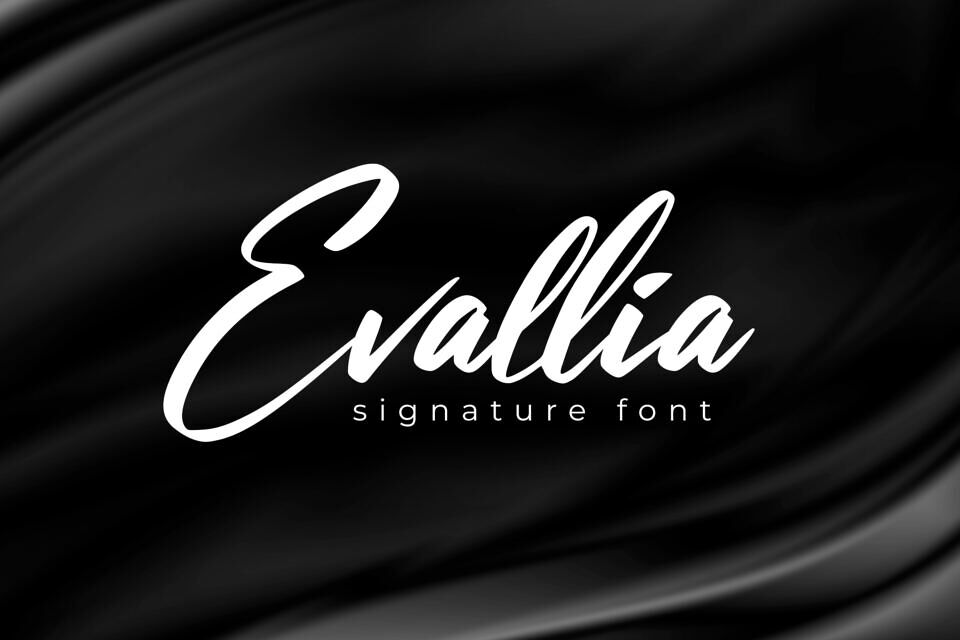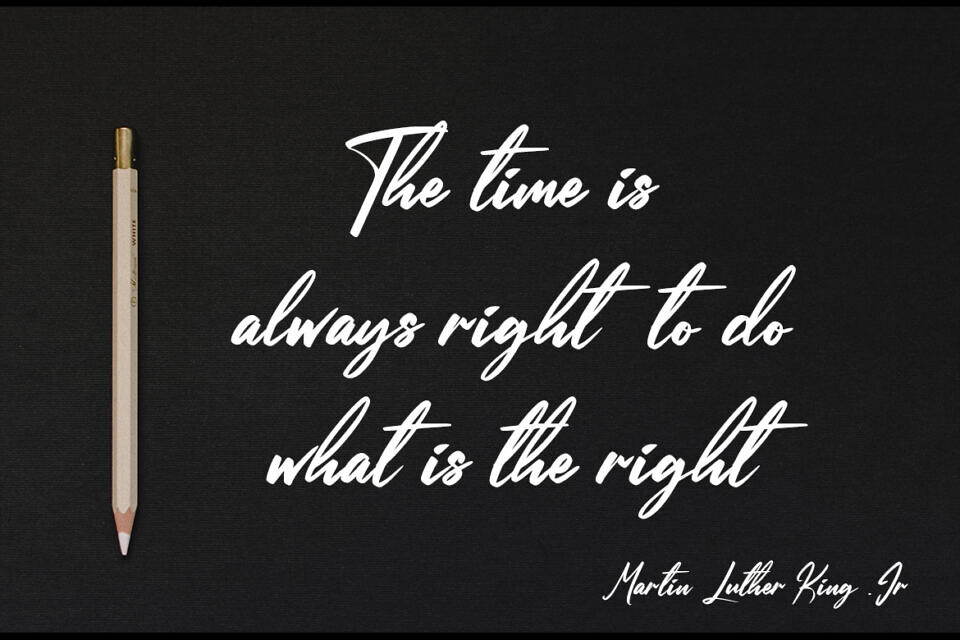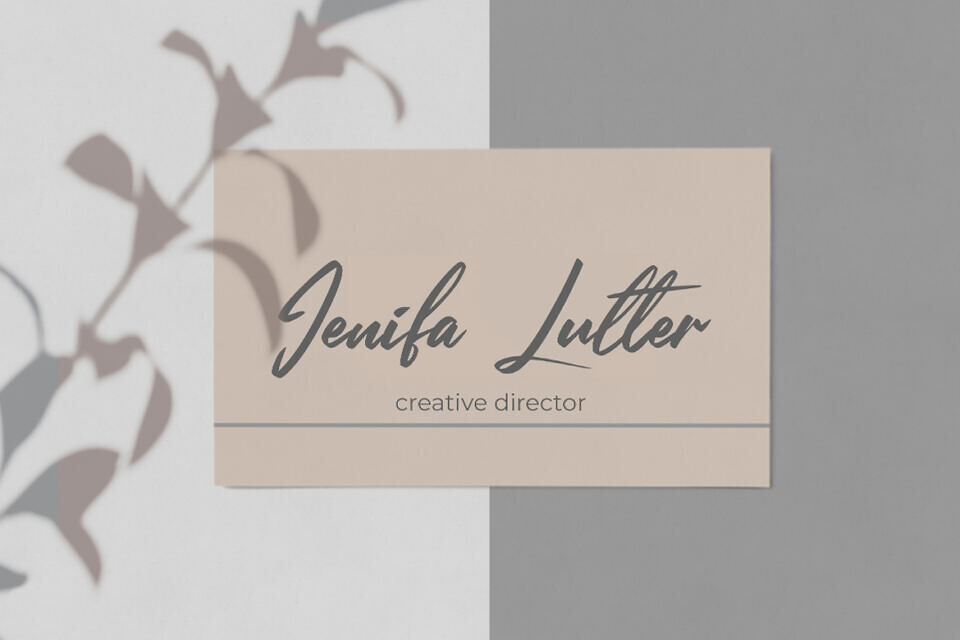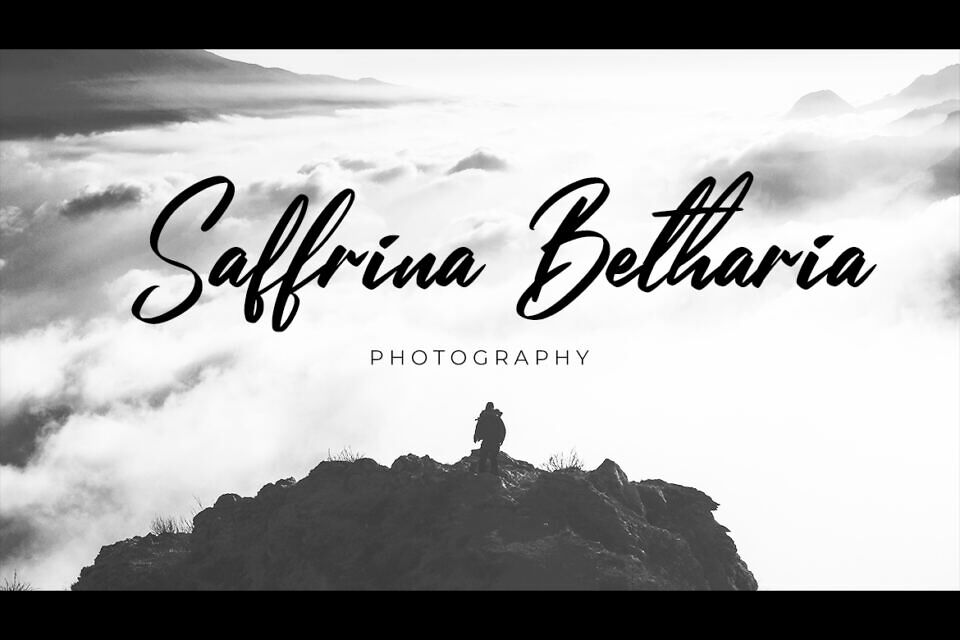
Evallia is a modern signature font with a unique baseline, smooth lines, and bold curves. It adds a touch of modernity to designs. Created from natural handwriting, Evallia is perfect for branding, logos, weddings, and social media, bringing a personal touch to various projects, including packaging, photography, and invitations.